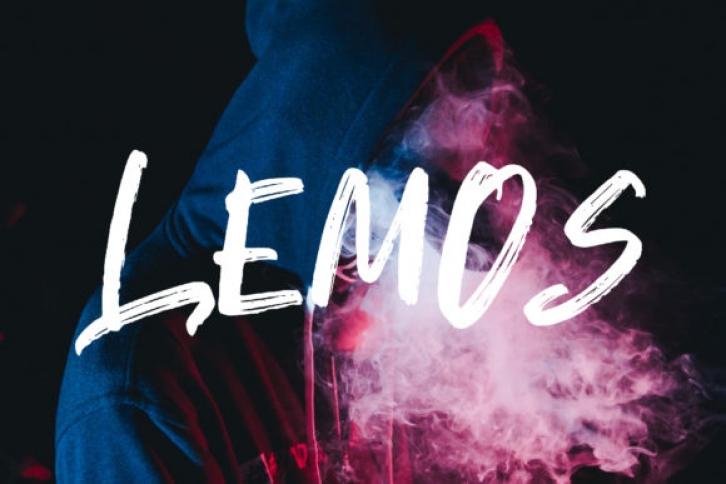
Lemos is a bold display font, created with the help of an outstanding brush pen. Get inspired by its incredibly versatile style and use it to create spectacular designs!